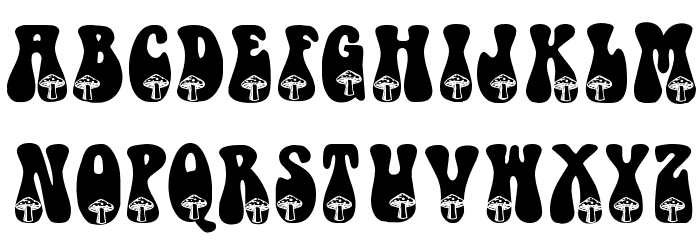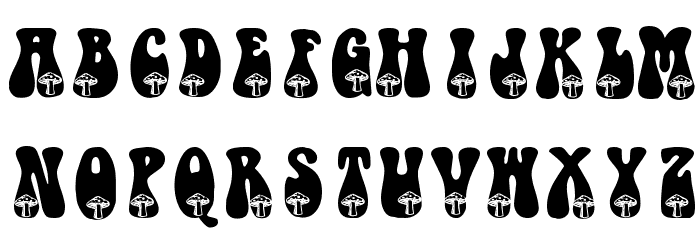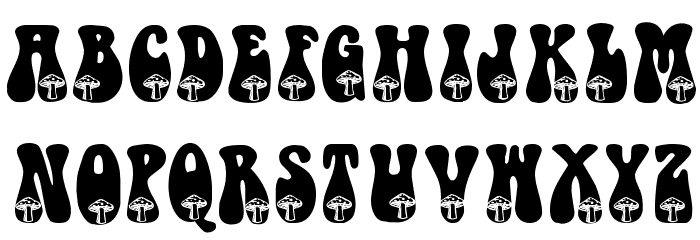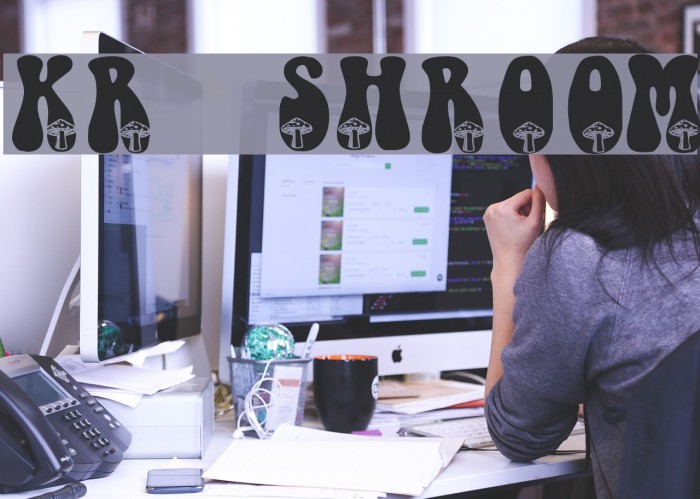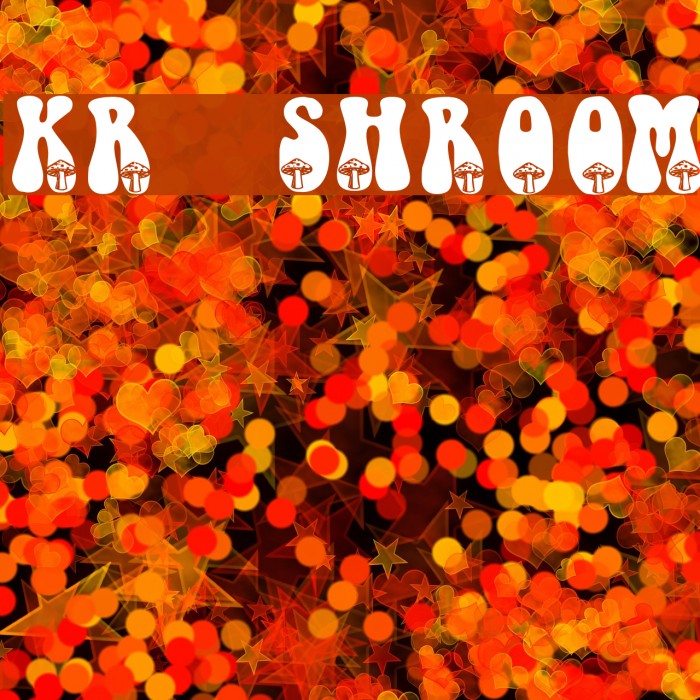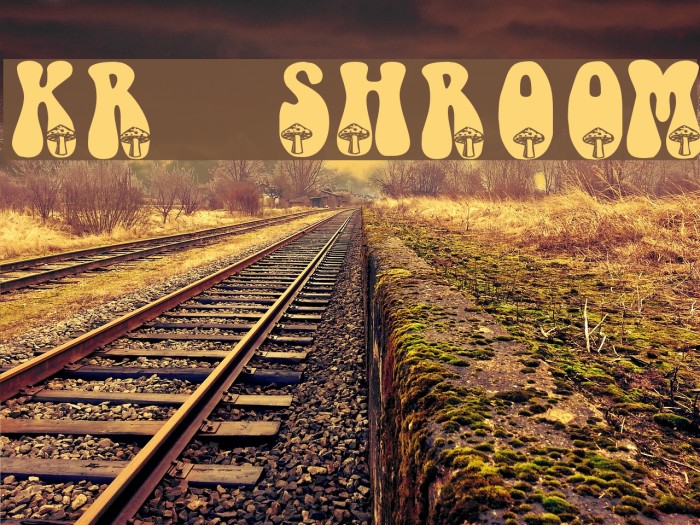
KR Shroom Font
This font features a playful and whimsical design, incorporating mushroom motifs within each character. The letters are bold and rounded, with a distinct organic flow that adds a unique charm. The integration of mushroom illustrations within the letters gives it a quirky and imaginative feel, making it stand out as a decorative typeface. The overall style is reminiscent of a retro or psychedelic aesthetic, perfect for projects that require a touch of fun and creativity. The characters are evenly spaced, ensuring readability while maintaining its artistic flair.
A playful, mushroom-themed decorative font with a retro vibe.
- Font: KR Shroom
- Proposed Projects: Ideal for children's book covers, whimsical posters, themed party invitations, and playful branding materials.
- Overall Style: Decorative, Retro